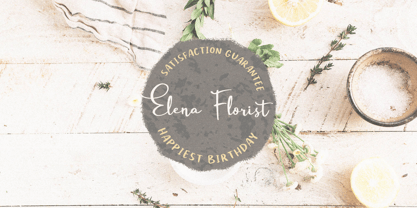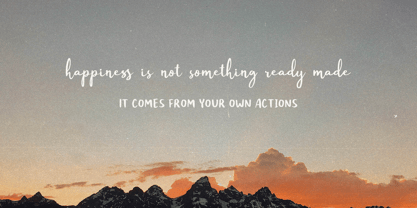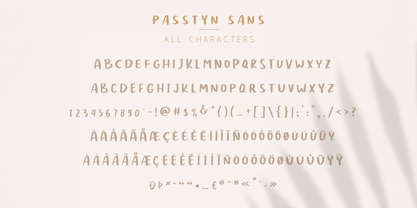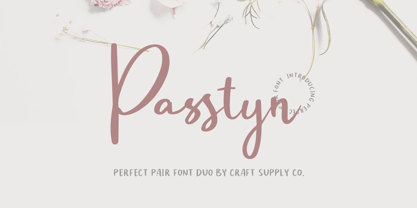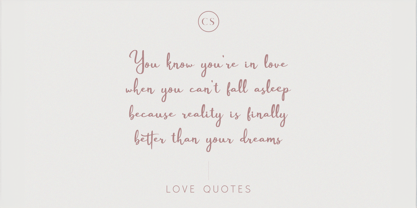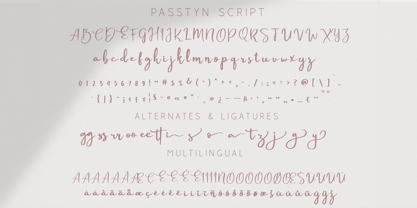
Passtyn Script
by Craft Supply Co
The Passtyn Script Font Family was designed by Trio Nazzar Saputra, Wahyu Hadi Yuana and published by Craft Supply Co. Passtyn Script contains 2 styles and family package options.
Passtyn – Handwritten Font Duo is an handwritten script font based on the expression of real handwriting. Larissa – A Lovely Script Font will work perfectly for fashion, e-commerce brands, trend blogs, wedding boutiques or any business that wants to appear upscale and chic. Passtyn – Handwritten Font Duo also Suitable for Logo, greeting cards, quotes, posters, branding, name card, stationary, design title, blog header, art quote, typography, art, modern envelope lettering or book design, happening style like handdrawn design or watercolor design theme, craft design, any DIY project, book title, or any purpose to make your art/design project look pretty and trendy.